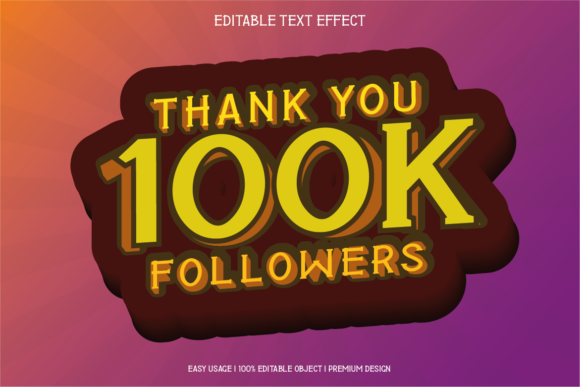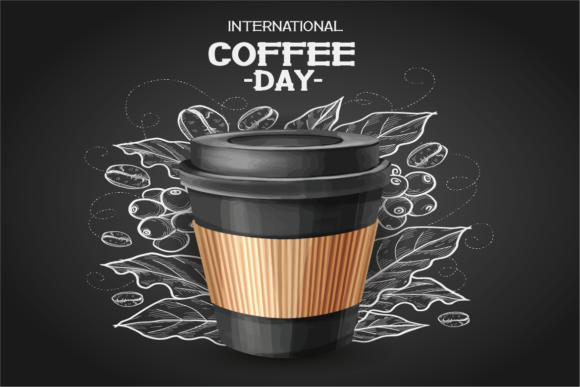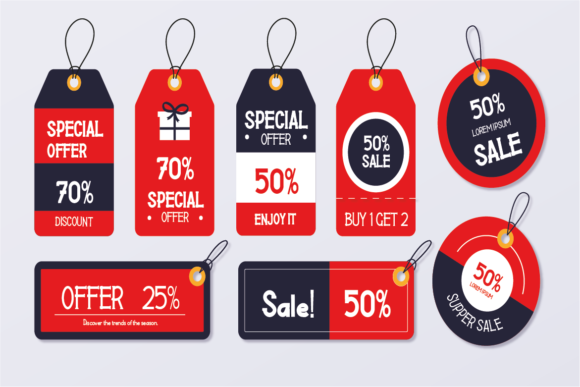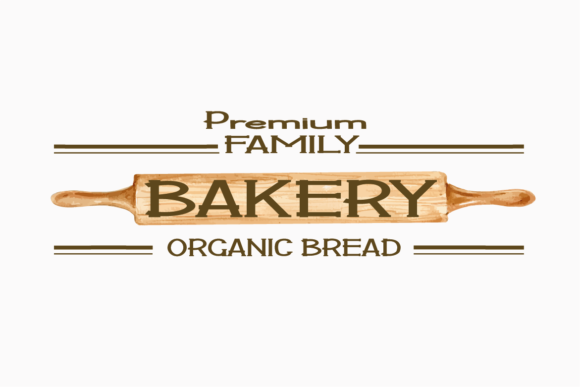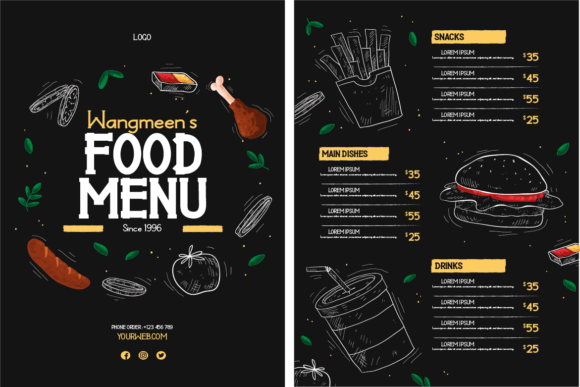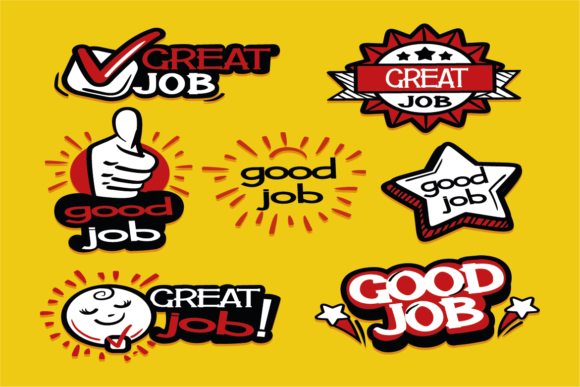
Introduction to Embunk Font
Embunk is a cool and natural serif font.
Whether youโre using it for brand name-related designs, discount ads, restaurant, cake shop logos, book covers, posters, quotes, or just any creation that needs a touch of trend, this font is a great choice .